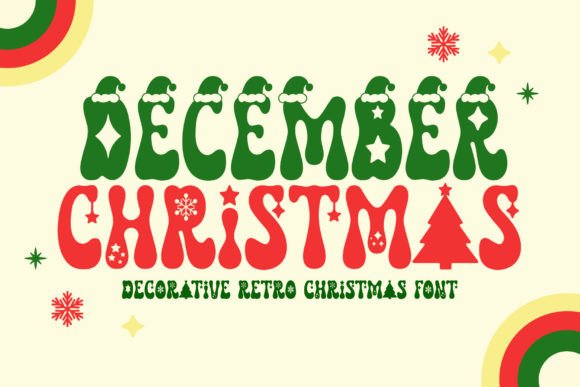
Introducing December Christmas Font, the ultimate font to elevate your holiday projects and spread festive cheer! Created by airotype, this delightful and whimsical decorative font captures the true essence of the holiday season. With its charming holiday elements adorning each letter, December Christmas brings a sense of joy and merriment to your designs.
Looking to add a playful touch to your Christmas-themed projects? Look no further! December Christmas Font is the perfect choice for creating eye-catching greeting cards, captivating posters, and so much more. Its unique design evokes a sense of wonder and excitement, instantly capturing the attention of your audience.
Imagine the smiles and warm feelings your holiday cards will evoke when they feature December Christmas Font. The intricate details and festive elements make each letter a work of art, creating a truly memorable and magical experience for the recipient. Your loved ones, friends, and clients will be in awe of the creativity and thoughtfulness behind your personalized holiday greetings.
Not only does December Christmas Font bring a touch of whimsy to your designs, but it also offers endless versatility. Whether you're designing for a cozy family gathering or a grand corporate event, this font adapts to any occasion seamlessly. Its captivating charm ensures that your message stands out and leaves a lasting impression on everyone who sees it.
But December Christmas Font isn't just about aesthetics; it's also about making your life easier. With its user-friendly nature, this font is a breeze to work with. You'll have no trouble incorporating it into your digital or print projects, saving you time and effort. The intuitive design allows you to focus on what truly matters – creating stunning visuals that capture the spirit of the season.
Get ready to embark on a magical journey with December Christmas Font. Let its whimsical charm and holiday elements transport you to a world filled with joy, warmth, and endless design possibilities. This font is your key to creating unforgettable moments and spreading the holiday spirit with every project you undertake.